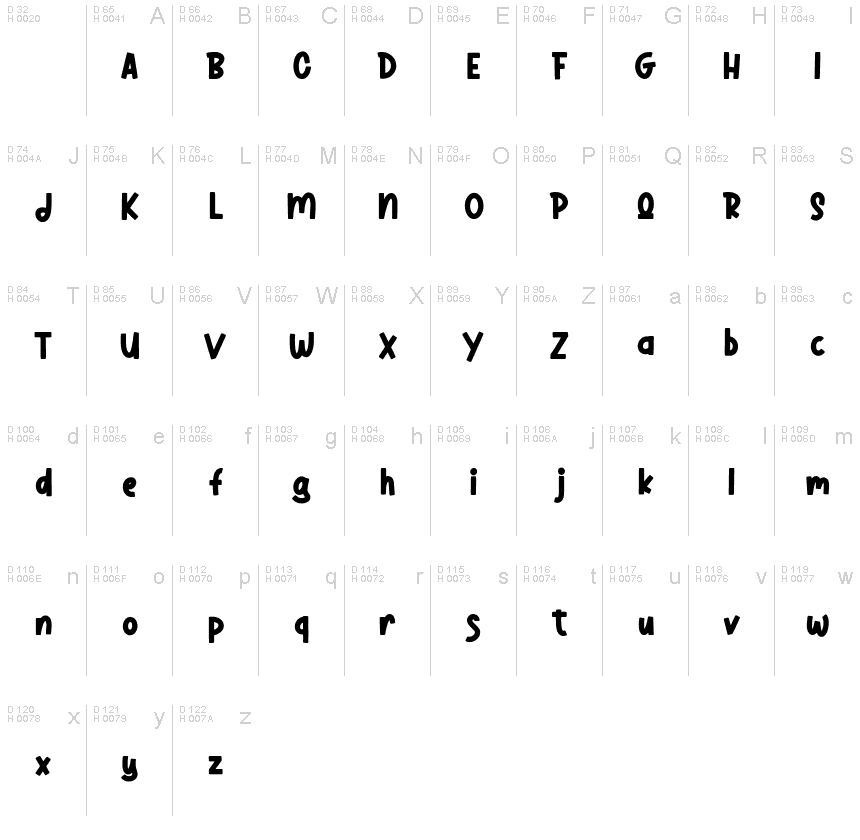
Kruiseta Free Regular
Kruiseta by Maulana Creative is a playful display font that will bring your designs to life. With its cartoon-style, Kruiseta is perfect for children's book covers, greeting cards, posters and more. The semi-bold font width makes it easy to read and the unique letter shapes add a touch of fun to any project. Use Kruiseta for bold headlines or as an accent font in your designs. Try Kruiseta today and add some whimsy to your next project!